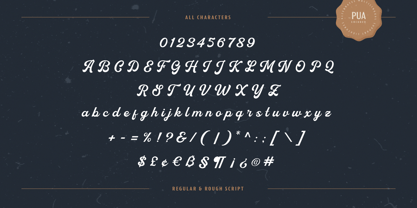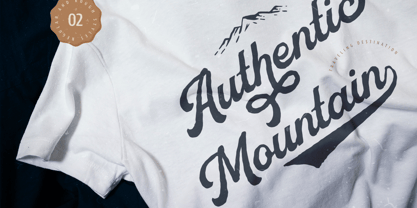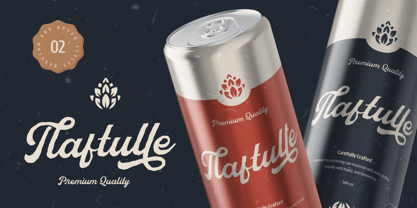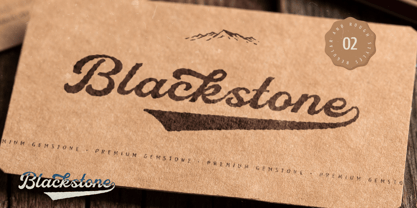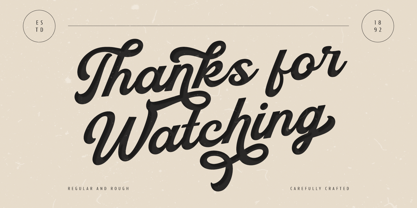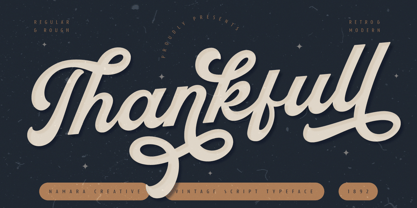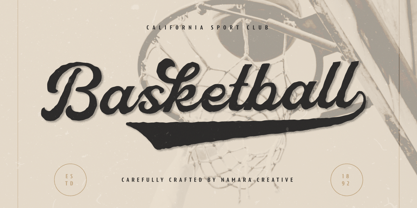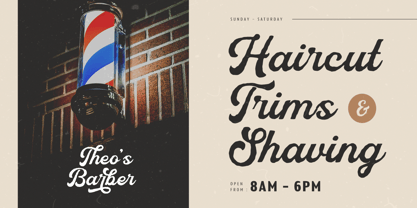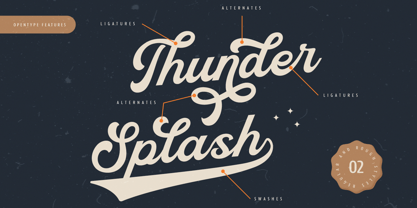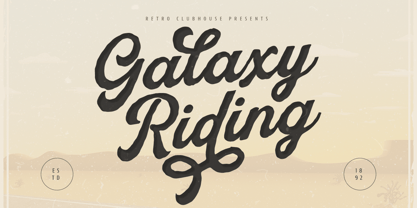
Thankfull
by Namara Creative Studio
The Thankfull Font Family was designed by Eep Apringga and published by Namara Creative Studio. Thankfull contains 2 styles and family package options. More about this family
Introducing Thankfull, a charming vintage script typeface designed to infuse retro vibes and elegant curves into your creative projects. This hand-lettered style font seamlessly blends nostalgic script elements with a fresh modern twist, making it perfect for adding a bold, expressive look to your designs. Whether you’re crafting logos, social media quotes, packaging, stationery, or custom branding, Thankfull imparts a warm, handcrafted feel that enhances your visuals with personality and charm. Features : Retro & Modern design Smooth script with elegant curves Two styles: Regular & Rough Ideal for branding, posters, logos, invitations, and more Includes stylistic alternates and swashes Available in both Regular and Rough styles, Thankfull offers flexibility and texture, making it equally suitable for clean branding or rustic aesthetics. The font’s expressive swashes and stylish ligatures provide extra flair for custom lettering and logotypes, ensuring your projects stand out with unique character.
Designers: Eep Apringga
Foundry: Namara Creative Studio
Thankfull